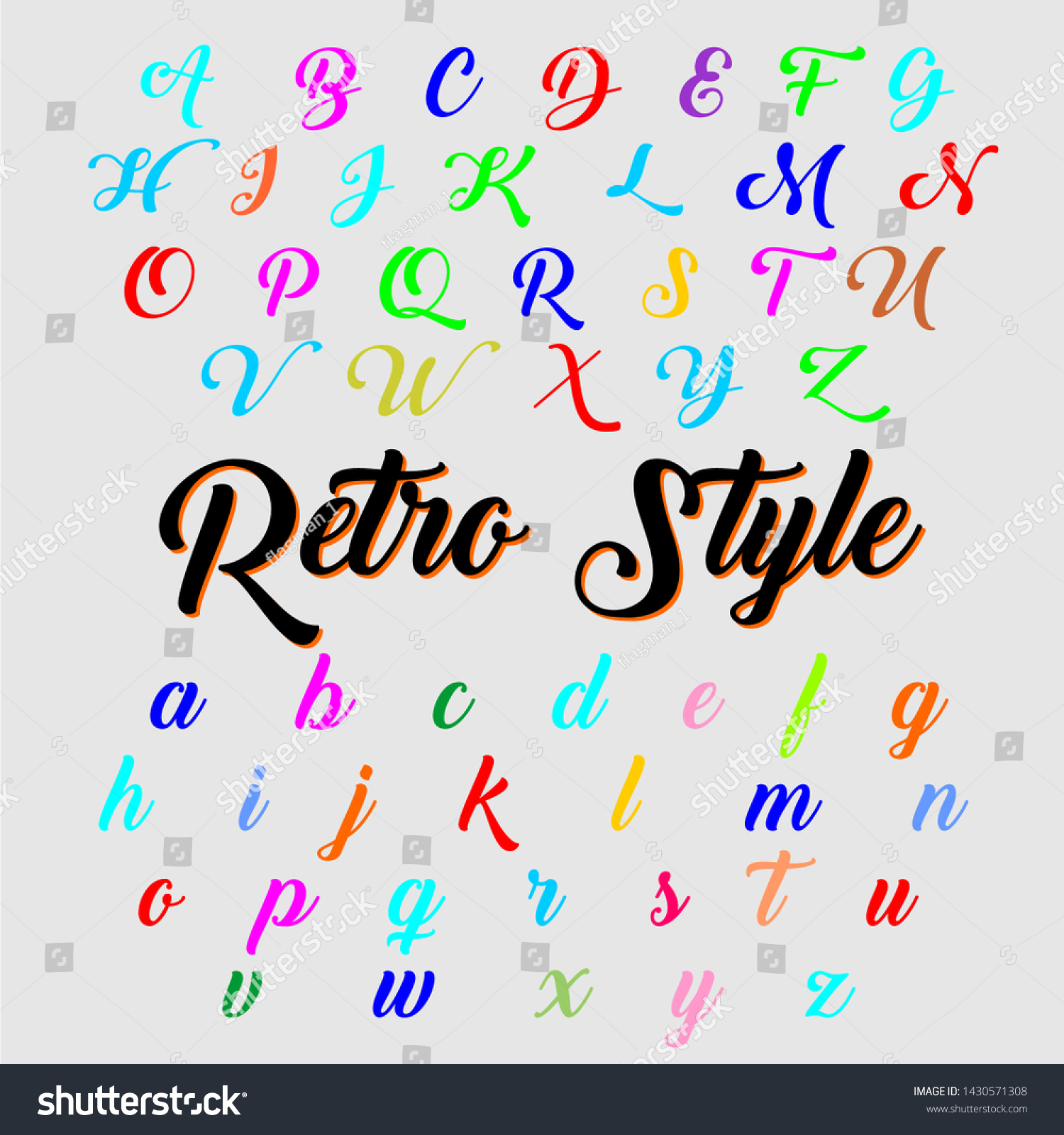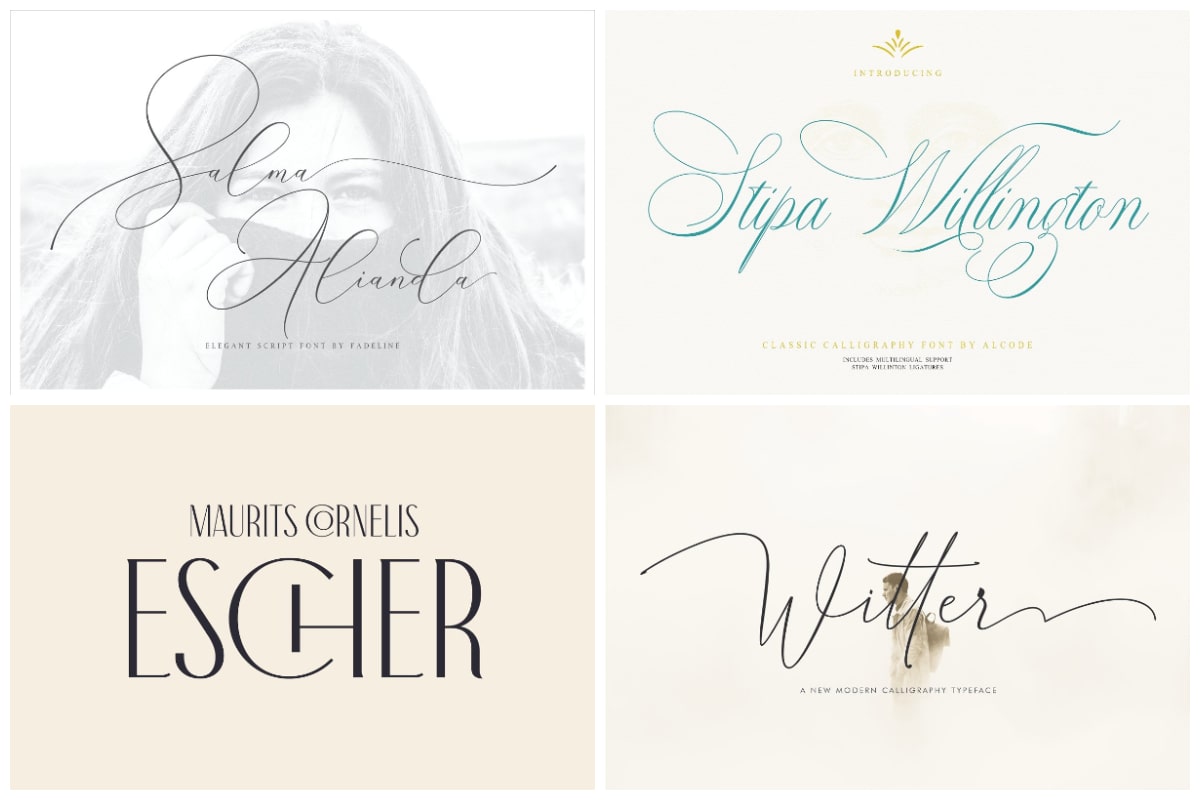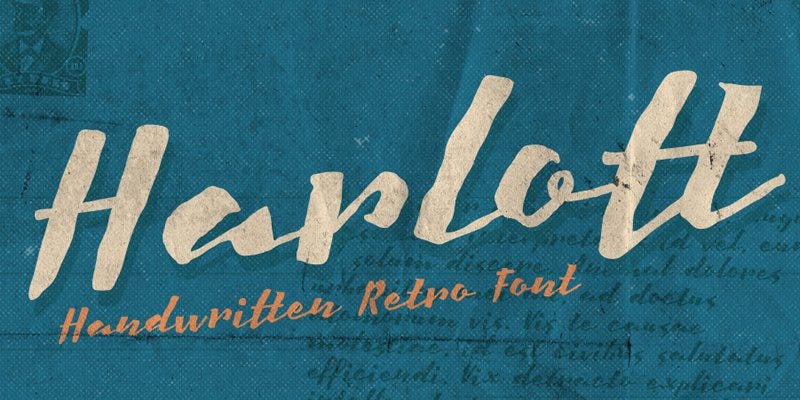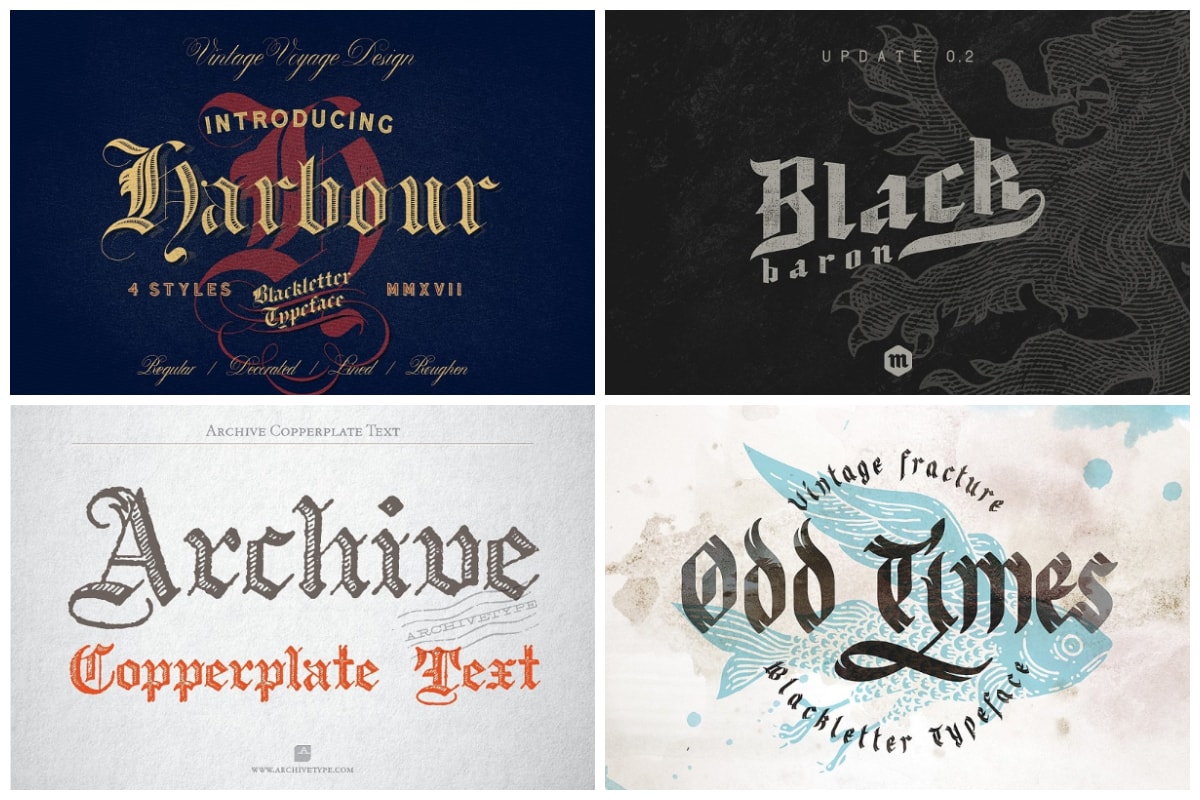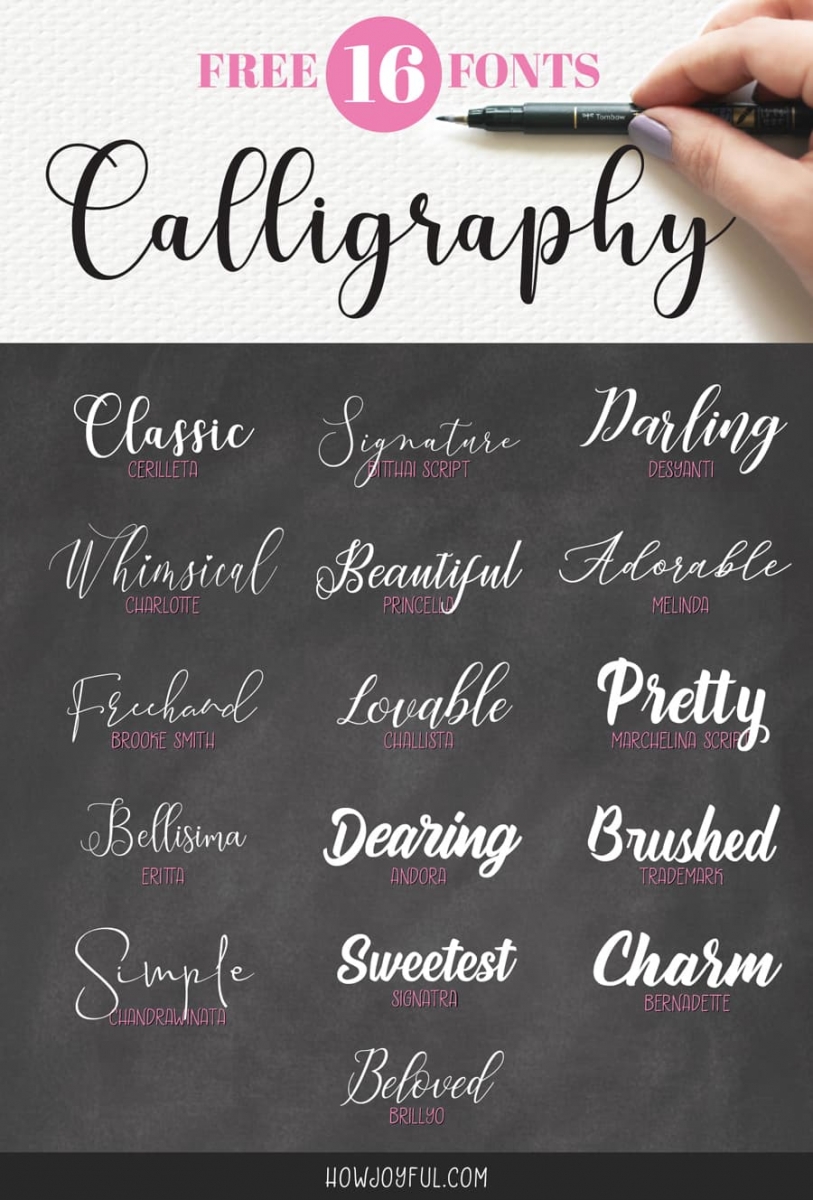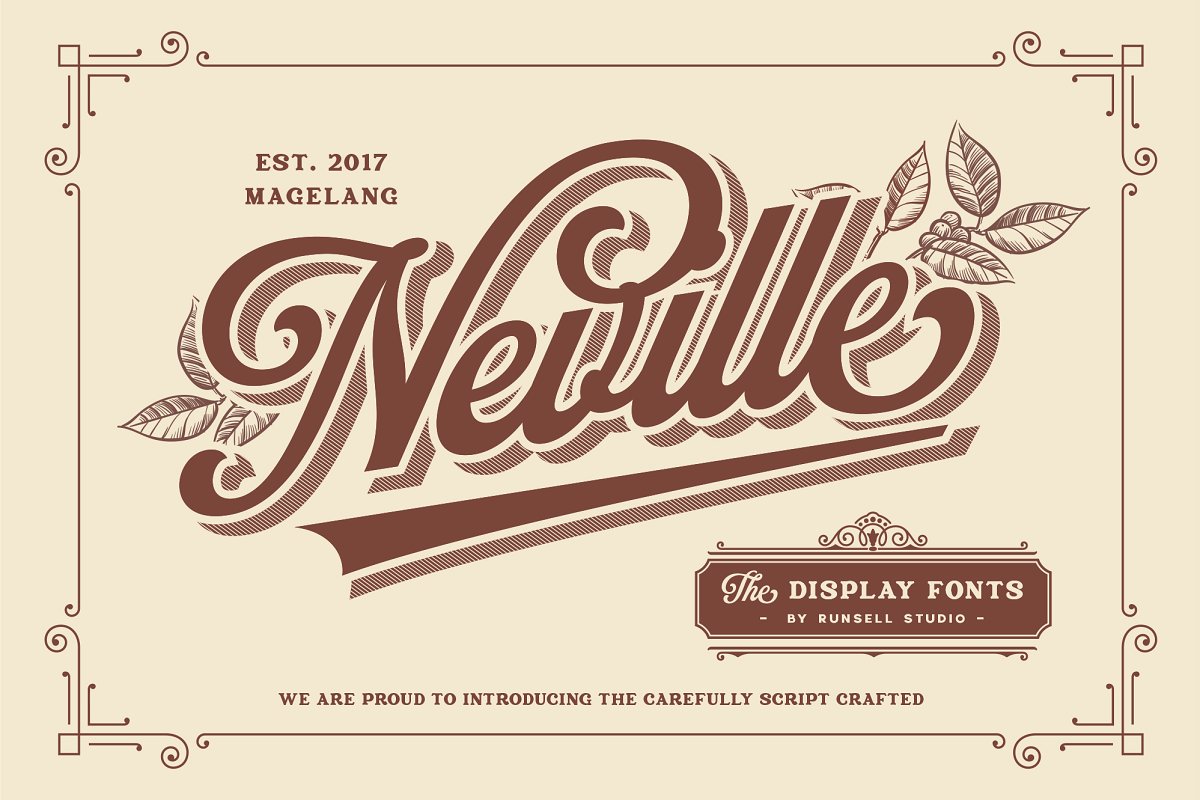
Calligraphy vintage fonts. 3000 font calligraphy Fonts Retro Fonts Vintage Fonts 60s Fonts Handwritten digital font Bestseller This item has had a high sales volume over the past 6 months. The writing is readable but is usually extravagant and embellished with flourishes. Lily of the Valley_Personal_Use.
Every font is free to download. Calligraphy is an artistic writing style where the pressure is varied to create thick and thin lines all in a single stroke. Click to find the best 192 free fonts in the Vintage Cursive Calligraphy style.
They can be used for magazine covers poster design branding and more. Burgues Script created by Alejandro Paul is a typical font family of calligraphy style. According to the designer the font is an ode to the late 19 th century American calligrapher Louis Madarasz known as the most skillful penman the world has ever known.
The main sub-styles are traditional calligraphy and modern.